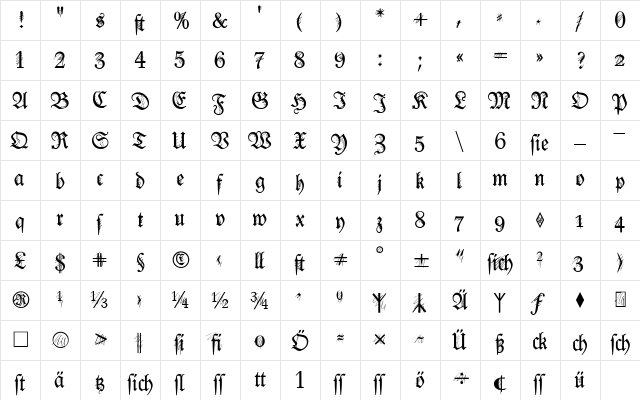
IronFraktur Regular
Design Context for IronFraktur Typeface
IronFraktur draws on the rich tradition of blackletter calligraphy, with dense, angular strokes that evoke medieval manuscripts and old-world craftsmanship.
Well-suited to band logos, craft beer branding, tattoo lettering, and heritage-themed identities.
Font Pairing: Pair with a clean neutral sans-serif for body copy to let IronFraktur's character lead without overwhelming the composition.
Pro Tip: Use IronFraktur sparingly at large sizes. Even a single word set in blackletter can define the visual register of an entire design.